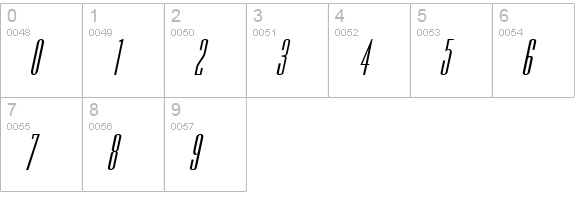
Slim Jim Bold Italic Font Details
Slim Jim Bold Italic is a strong, high-contrast, italic variant in the Slim typeface family \xE2\x80\x94 well suited to headlines, attention-grabbing titles, and strong calls-to-action.
Introducing Slim Jim Bold Italic, a captivating and versatile font that is sure to make a bold statement in your designs. With its sleek and slender letterforms, this typeface exudes modernity and sophistication, while its italicized style adds a touch of elegance and flair. Slim Jim Bold Italic is perfect for a wide range of design projects, whether you're creating eye-catching logos, stylish headlines, or captivating typography for posters and advertisements. Its unique combination of boldness and italicized slant creates a visual harmony that effortlessly captures attention and leaves a lasting impression. This font offers a plethora of stylistic possibilities, allowing you to experiment and create innovative designs. Its extended character set includes a variety of ligatures, alternates, and swashes, providing you with endless creative options and ensuring that each project stands out from the crowd. One of the best parts about Slim Jim Bold Italic is that it is freely available to download at FontsMarket.com. This means that you can easily access this exceptional font without any financial constraints. Whether you're a professional designer or a passionate enthusiast, you can take advantage of this incredible font to elevate your designs to new heights. So why wait? Download Slim Jim Bold Italic today and unlock a world of design possibilities. With its unique combination of boldness, elegance, and availability, this font is a must-have for anyone looking to make a statement in their design projects. Don't miss out on this free opportunity to enhance your creativity and create extraordinary designs that leave a lasting impression.